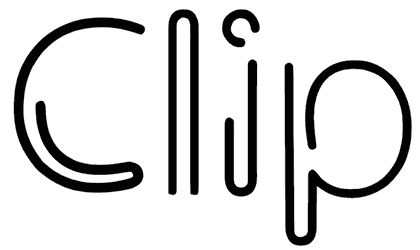
Clip Font
If you don’t know how to upgrade the design of your projects, just add the Clip to your library. Clip is another cool and quirky neon font inspired by hand drawing. So, if you want to have a significant modernization for your designs, such as logos, titles, artistic quotes, and cosmetic brands, this cursive font can help you.
Designed by: Martin Arguello